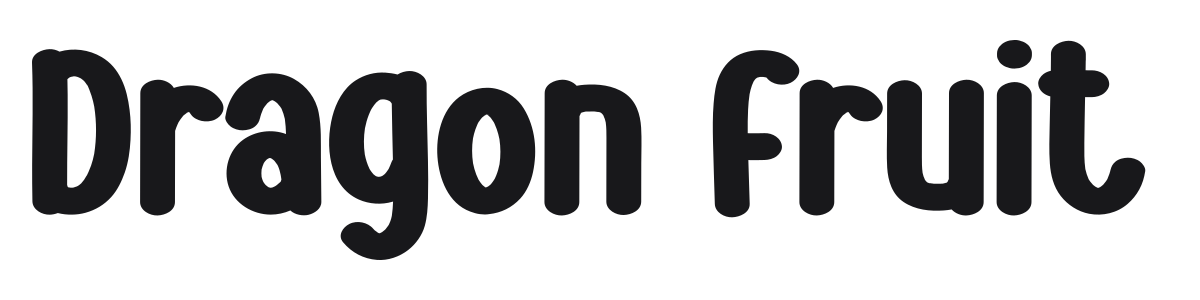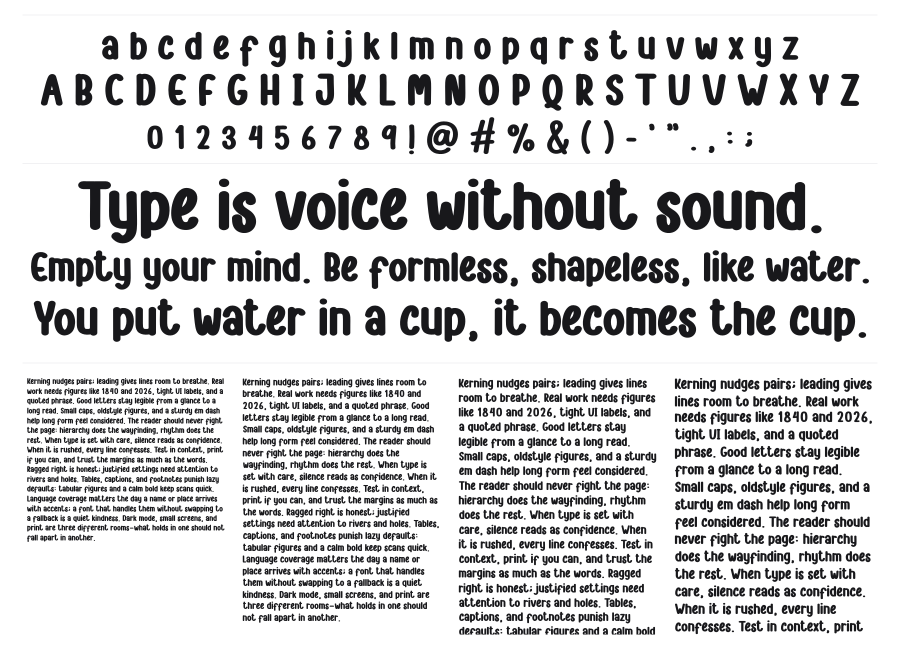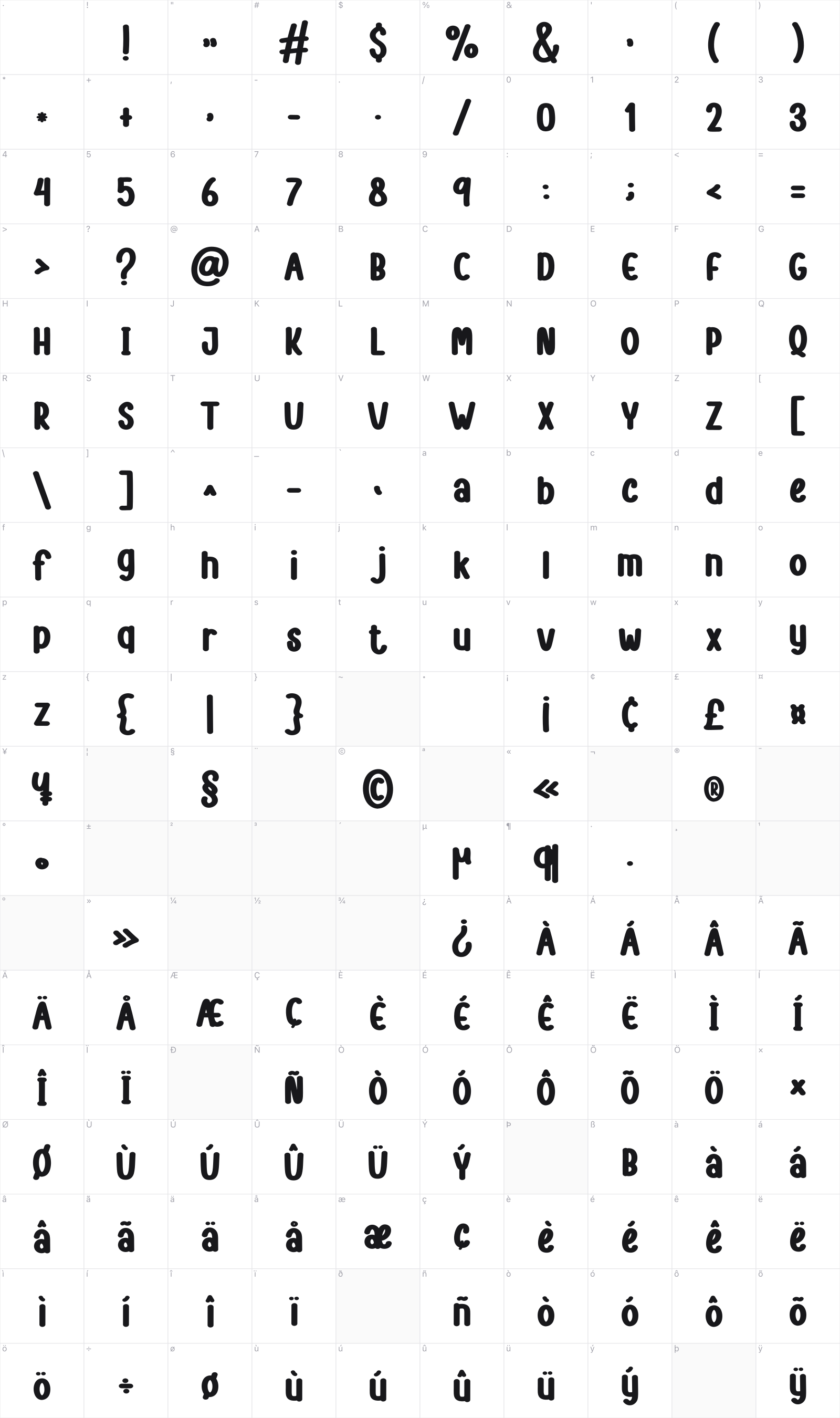
Dragon Fruit
Dragon Fruit is a bold, chunky casual script with rounded terminals and a cheerful handwritten rhythm. The heavy strokes and soft curves give it a warm, approachable energy that works well across greeting cards, packaging, and social media graphics. It carries the kind of looseness that feels personal without sacrificing legibility at display sizes.